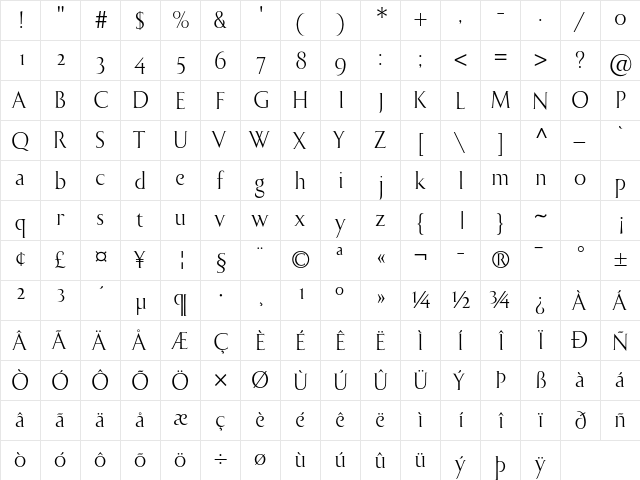
Bodebeck LT Std Regular
| Foundry | Linotype GmbH |
| Designer | Anders Bodebeck |
Design Context for Bodebeck LT Std Typeface
Bodebeck LT Std offers clean, dependable letterforms without strong stylistic allegiance, making it a practical choice for designers who need flexibility. Its slender proportions lend an understated elegance to any composition.